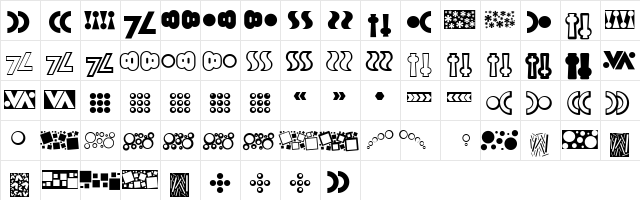
TFRouxBorders Regular
Design Context for TFRouxBorders Typeface
TFRouxBorders is a composed and adaptable typeface that performs quietly and consistently across a wide range of design contexts.